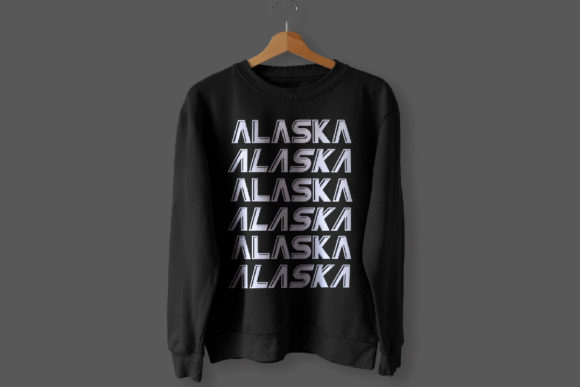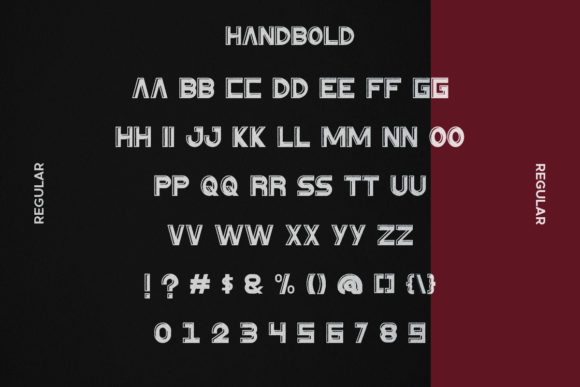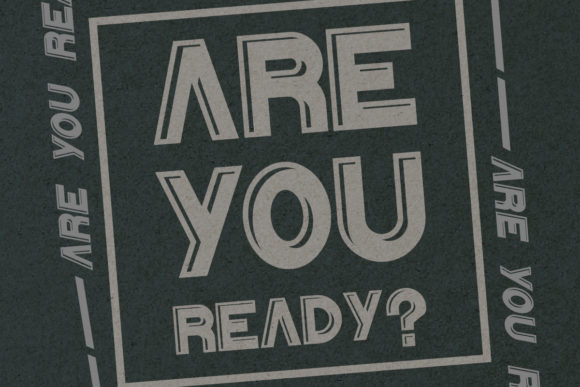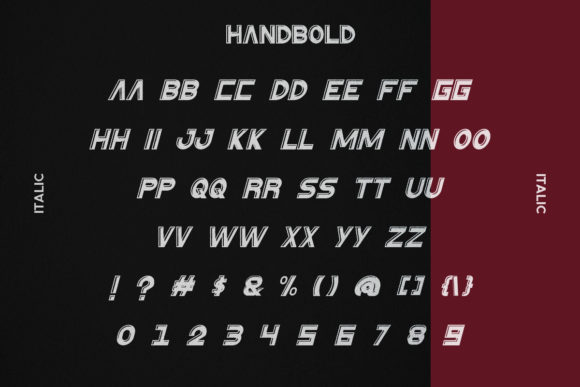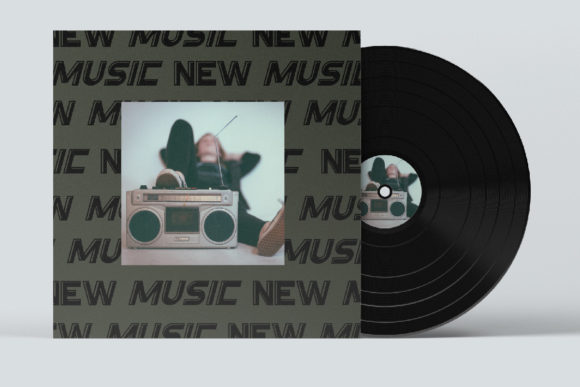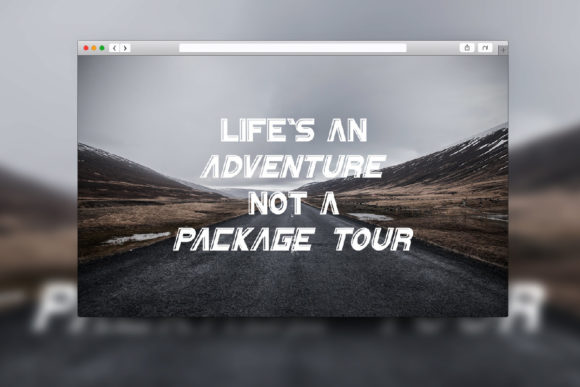
Introducing HandBold Font: Elevate Your Designs with a Stunning 3D Display Font
Are you tired of using the same old fonts in your designs? Look no further! HandBold Font is here to take your creative projects to the next level. This awesome 3D display font is designed to add a touch of excitement and uniqueness to your designs, making them stand out from the crowd.
What Makes HandBold Font So Special?
HandBold Font is an exceptional 3D display font that boasts a distinctive style, perfect for making a statement in your designs. Its bold and eye-catching appearance is sure to grab attention, making it ideal for a wide range of projects, from posters and flyers to logos and branding materials.
Endless Variations at Your Fingertips
One of the most exciting features of HandBold Font is its incredible versatility. With this font, you can experiment with endless variations, ensuring that your designs are always fresh and unique. Whether you’re a seasoned designer or a crafty DIY enthusiast, HandBold Font offers the perfect combination of style and flexibility.
HandBold Font is a dream come true for designers and crafters alike. Its 3D display capabilities make it perfect for creating stunning visual effects, while its bold and modern style ensures that your designs will be taken seriously. Whether you’re working on a commercial project or a personal craft, HandBold Font is the perfect choice.
Key Features of HandBold Font
- Stunning 3D Display Font: HandBold Font features a bold and eye-catching 3D display style that’s sure to turn heads.
- Endless Variations: Experiment with different styles, colors, and effects to create unique designs that reflect your personality.
- Perfect for Commercial and Personal Projects: HandBold Font is suitable for a wide range of projects, from commercial branding to personal crafts.
- Pair it with Other Fonts: Combine HandBold Font with other fonts to create stunning contrast and visual interest.
- Experiment with Colors: Try out different colors and gradients to add depth and dimension to your designs.
- Play with Effects: Add textures, shadows, and other effects to give your designs an extra boost.